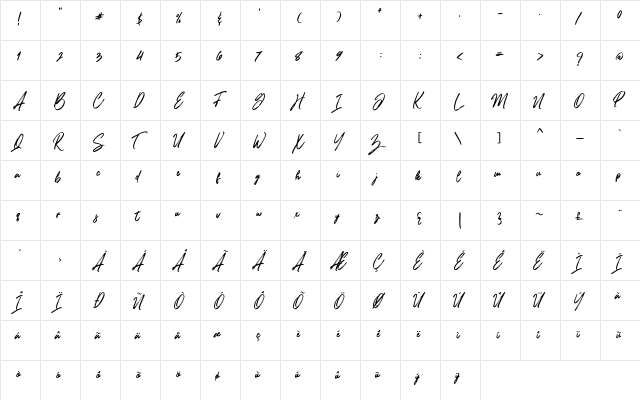
Brushfox Font Regular
Brushfox Font brings a calligraphic fluidity to the page — its connecting strokes and expressive curves give it an unmistakably human quality.
Font Pairing: Combine Brushfox Font with a simple geometric sans for maximum contrast — the tension between flowing curves and clean structure is a classic typographic pairing.
Pro Tip: Pair Brushfox Font with a clean sans-serif for supporting text. The contrast between fluid script and geometric structure creates an elegant typographic hierarchy.